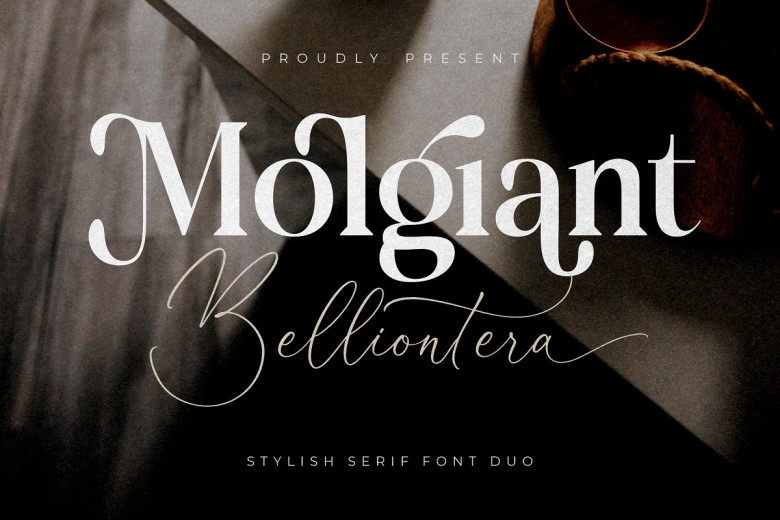
Molgiant Belliontera Font
Molgiant Belliontera Font Duo is an elegant script and serif font with its own distinct style and contemporary appearance, perfect for creating stylish logos, movie or book name designs, clothing labels, magazine letters and quotes, among other uses. This typeface also makes an eye-catching logo design!
Molgiant Belliontera Font Duo